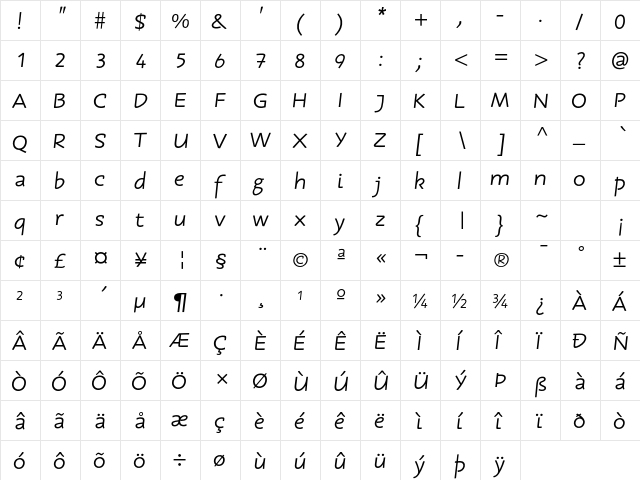
Comedia Std Medium Font Preview
Comedia Std Medium
Design Context for Comedia Std Typeface
Comedia Std takes a measured approach to typography — its balanced proportions and neutral character make it a reliable workhorse for both digital and print work.